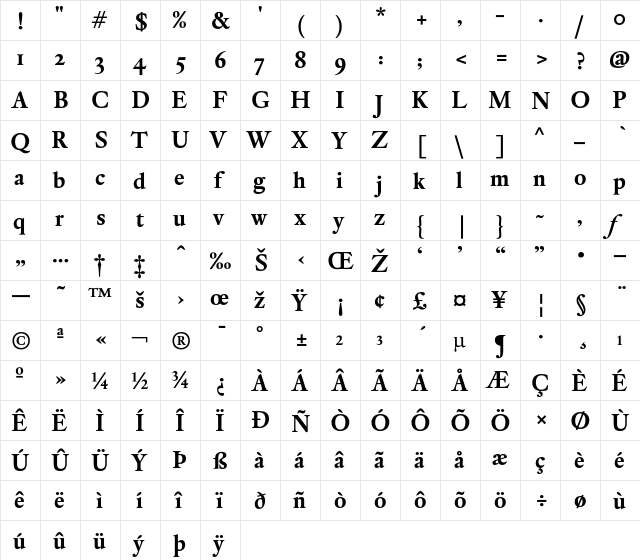
DTLElzevirS Bold
Design Context for DTLElzevirS Typeface
DTLElzevirS takes a measured approach to typography — its balanced proportions and neutral character make it a reliable workhorse for both digital and print work. Its bold stroke weight gives it real presence on the page.